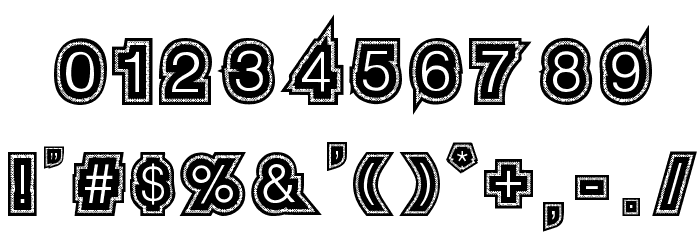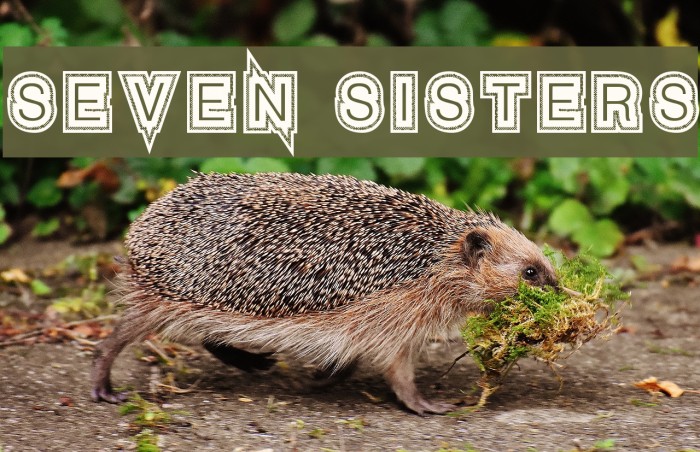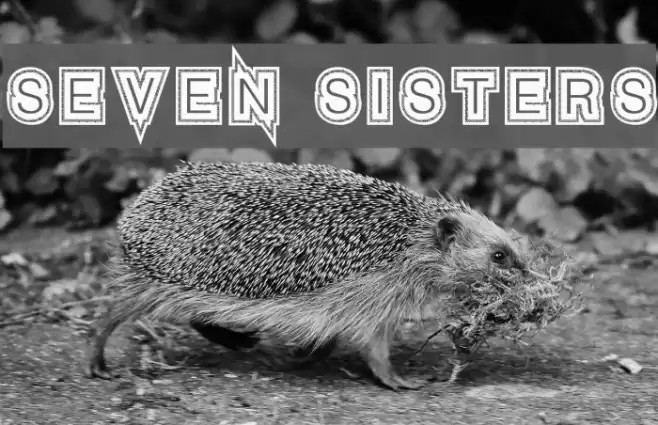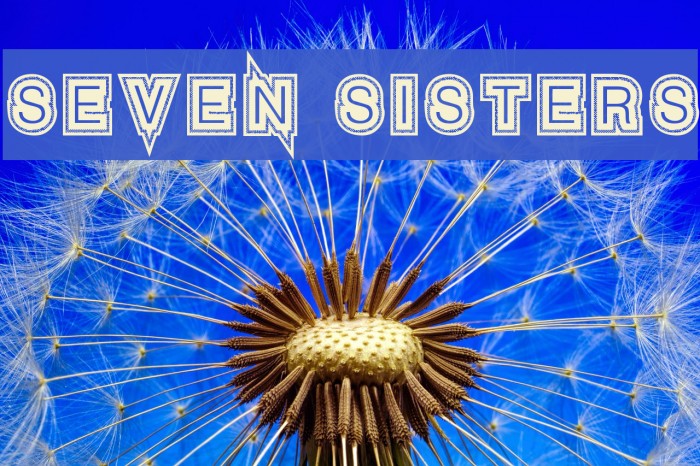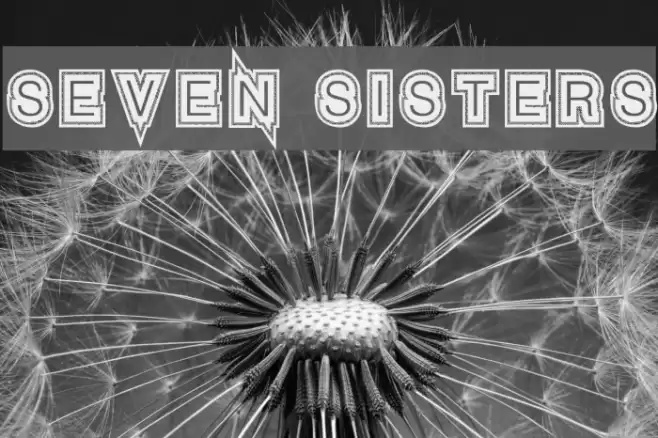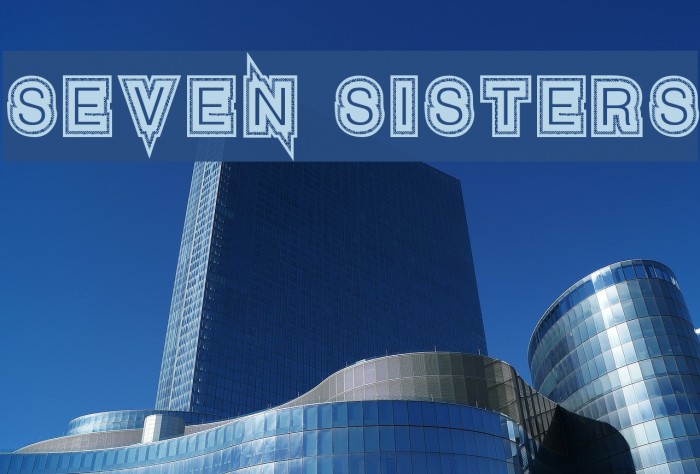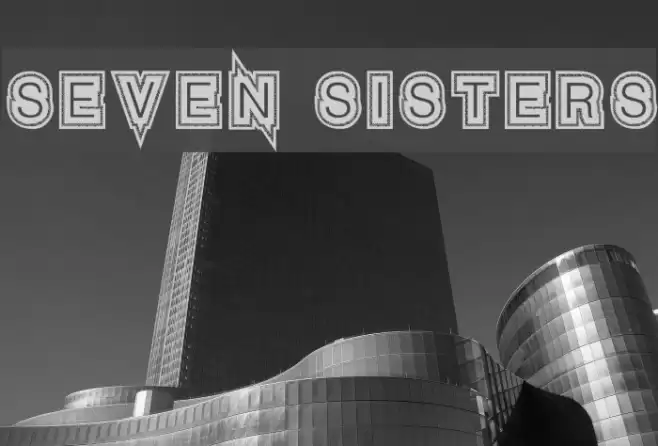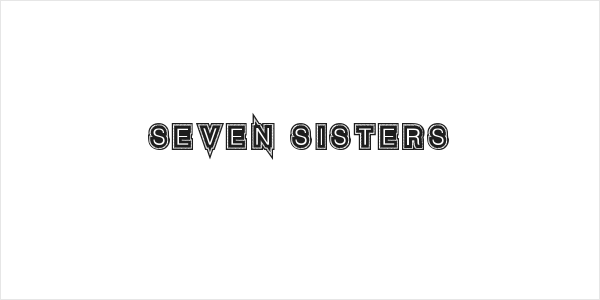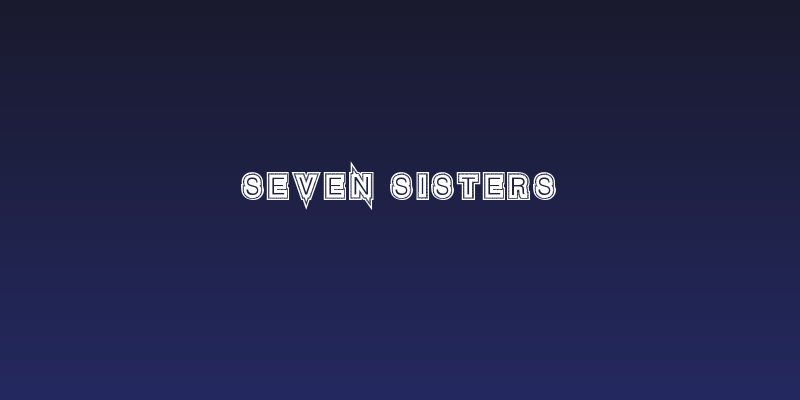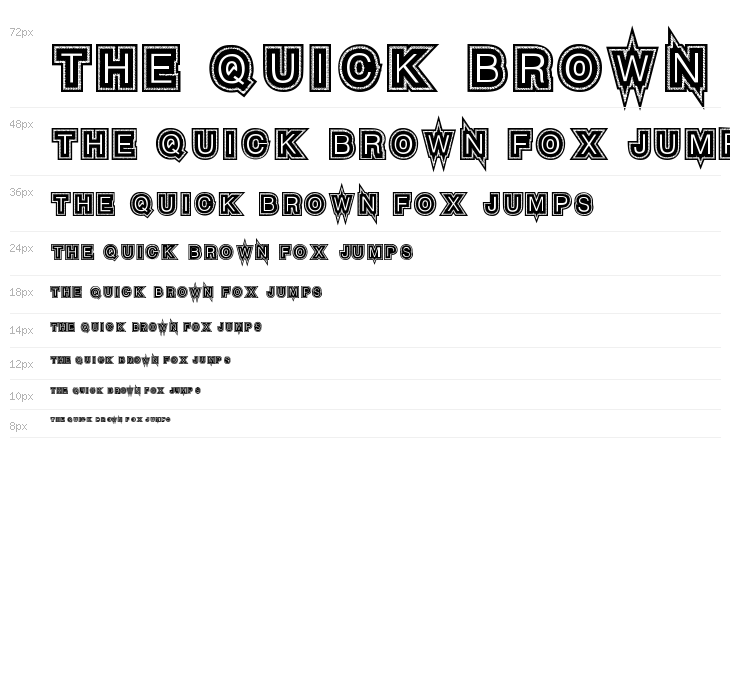
Seven Sisters Font
Seven Sisters Description
This font features a bold, decorative style with a distinct outline and shadow effect that gives it a three-dimensional appearance. Each character is designed with sharp, angular edges and a unique lightning bolt motif that adds a dynamic and energetic feel. The uppercase letters are particularly striking, with a strong presence that commands attention. The numbers and special characters maintain the same bold and decorative style, ensuring consistency throughout the typeface. This font is ideal for projects that require a standout, eye-catching design.
| Overall Style | Modern, Energetic |
| Proposed Projects | Ideal for posters, album covers, event promotions, and branding that requires a bold and energetic look. |